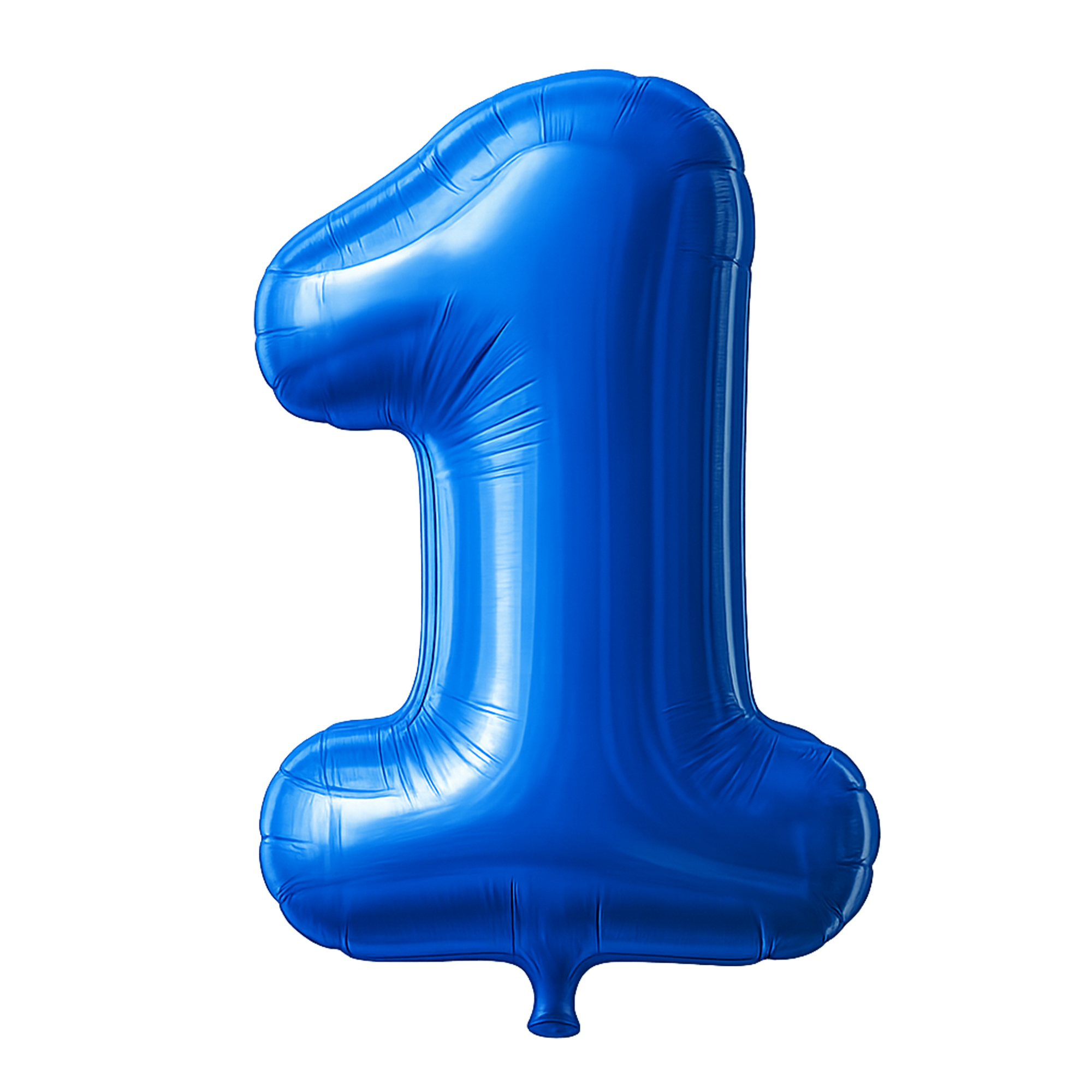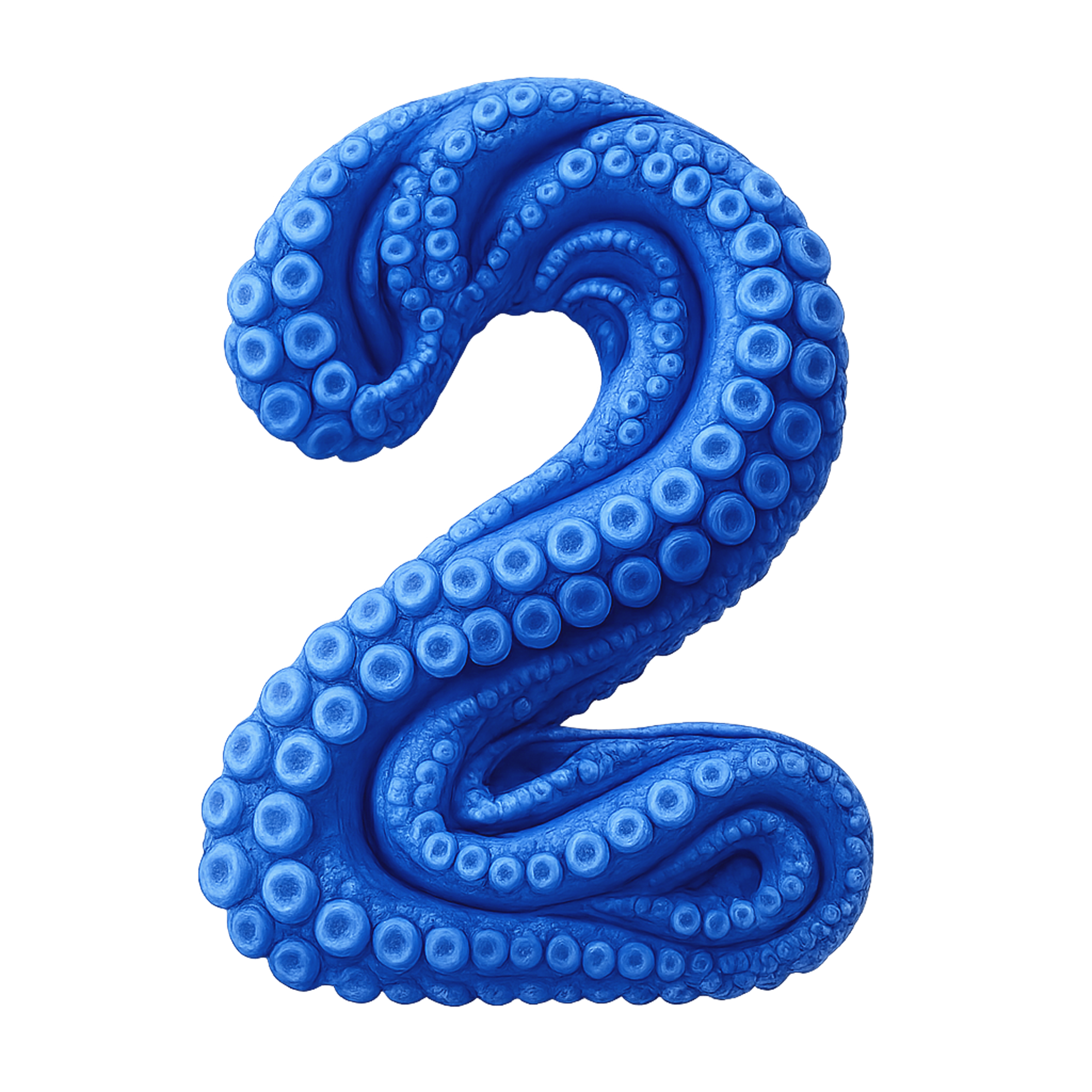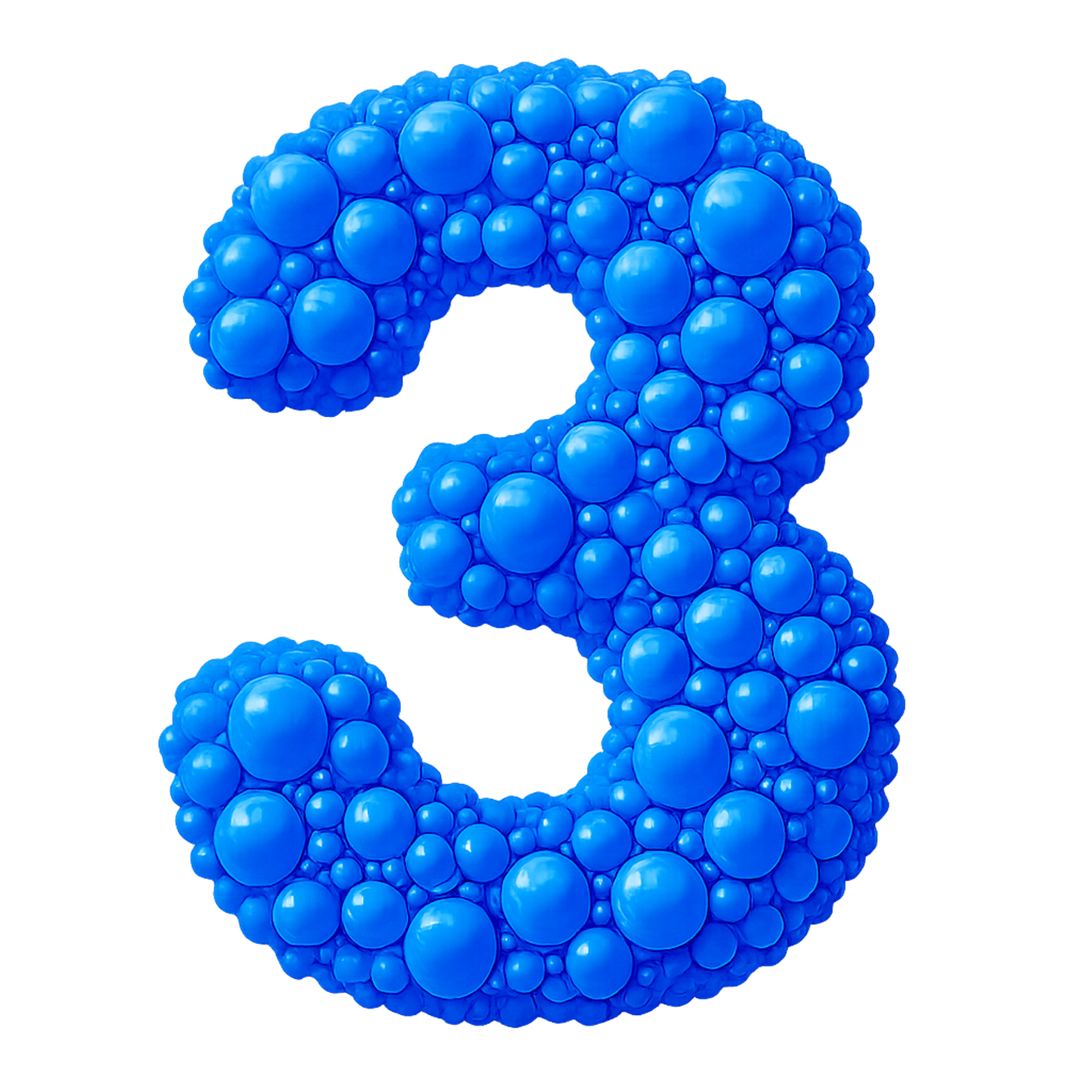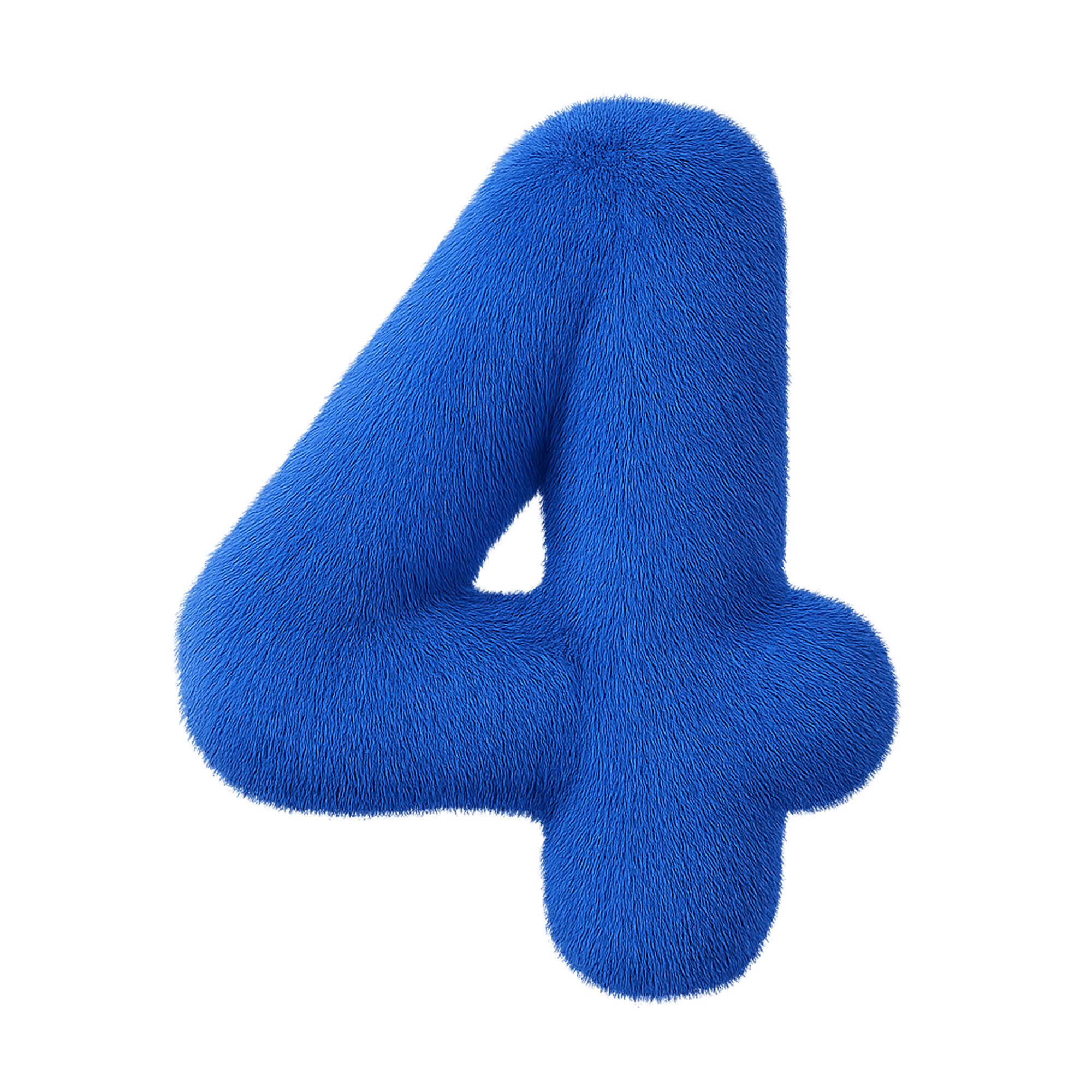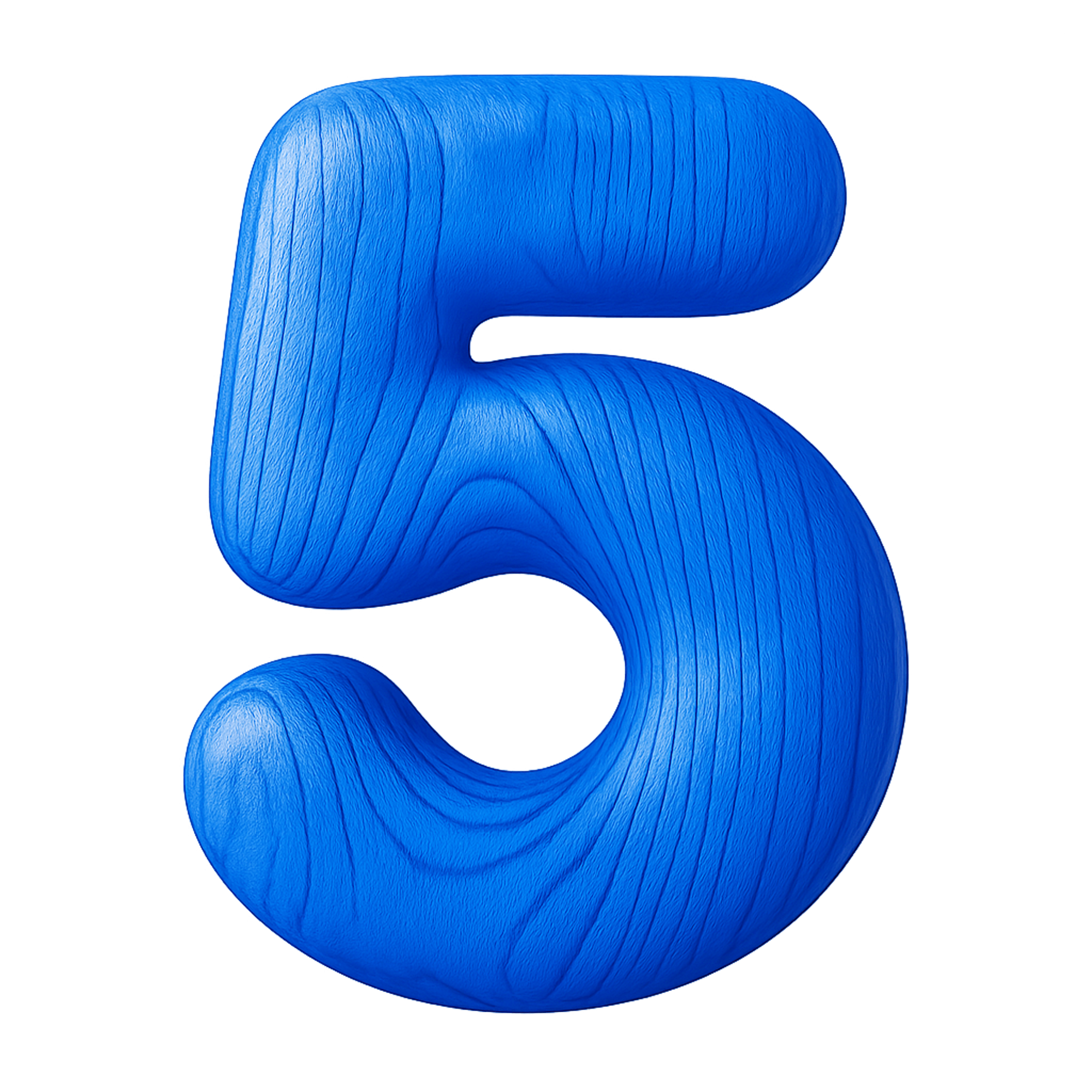
Look: We have to talk about AI.
Artificial intelligence and typography.
Human Types explores the interplay between humans and machines in typography and graphic design. Challenging generative AI and fleeting design trends, the series highlights the unique insights, expertise, and emotions of leading creatives, including Matthieu Salvaggio (Blaze Type), Matteo Bologna (muccaTypo), and Monotype’s Sina Otto. It emphasizes typography as a reflection of culture and identity, underscoring the essential humanity behind every typographic choice.
Humans are central to design. Design is a verb; design is human. It addresses human needs, wants, and dreams. It’s the action of reframing, innovating, executing, and curating as we work to find what’s new, what fits, what excites us. AI is great (and getting better) at execution. But human creativity is the driver, humanity the guiding light.
AI-based design isn’t the future — it’s here and it’s now. The question is no longer “if” or “when,” but “how” and “why.” If adopted thoughtfully, AI can act as our creative partner, working alongside us to add to our human creative capacities. Monotype’s experiments using AI, though early days, have produced amazing results. Expect more and expect it soon.
Typographic abundance makes new tools essential. Today, we have more typography available to us than ever before. This makes finding the type we want difficult. Seasoned typographers can only remember a couple thousand fonts by eye. AI can learn them all — and can and will help non-type-obsessives find their very particular needle in a very large haystack.
Don’t just expect more fonts — expect to see more lettering, too. AI is getting pretty great at lettering, creating beautiful letterform lockups. It will get better and better. Look for a future where expressive letters are called into being without the use of fonts.
Typography is becoming more personal. Printed type provides a standard, static experience that is the same for everyone. This gives designers control, allowing them to craft a particular experience. There are advantages to knowing how your audience will encounter your work. But user needs can vary widely. AI provides us with the possibility of a more personalized digital future, with dynamic text that can respond to our individual preferences and needs, changing fonts, spacing, color, design, and even language to fit our circumstances. What impacts will we see in the worlds of design and culture as we shift to more individualized typographic experiences?